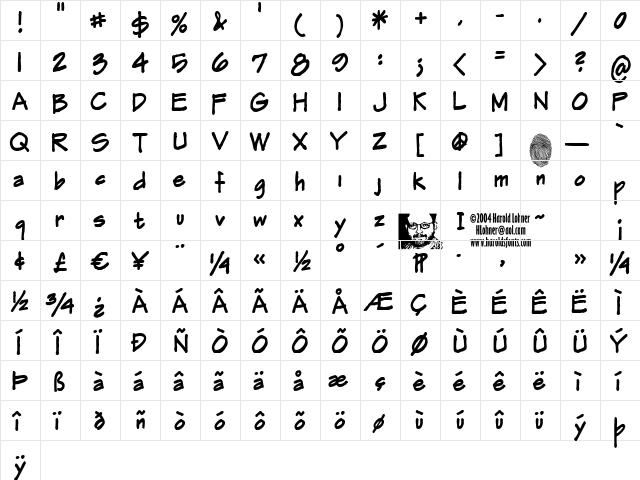
Frank the ArchitectBold Regular
Design Context for Frank the ArchitectBold Typeface
Frank the ArchitectBold takes a measured approach to typography — its balanced proportions and neutral character make it a reliable workhorse for both digital and print work. The heavy weight commands attention and anchors typographic hierarchies.